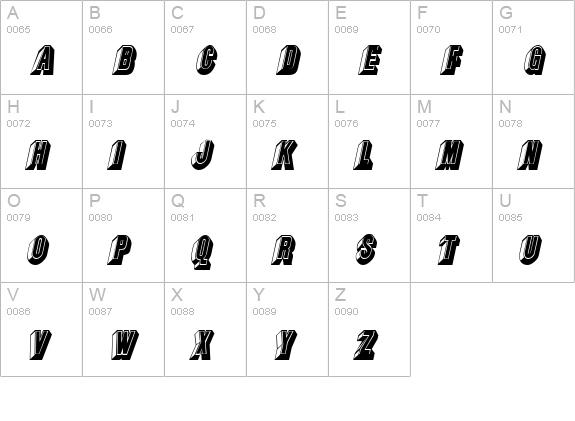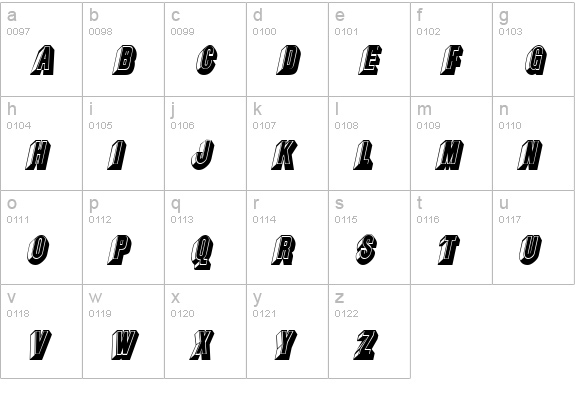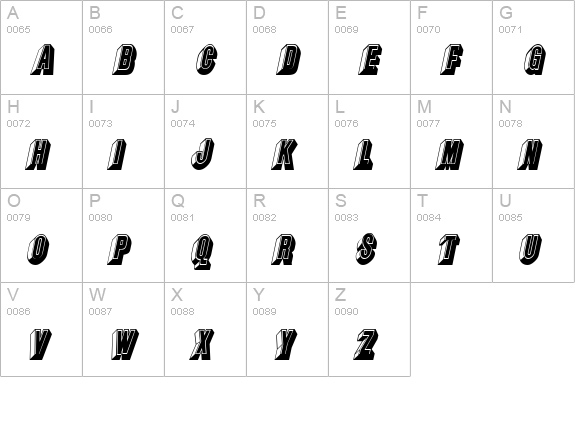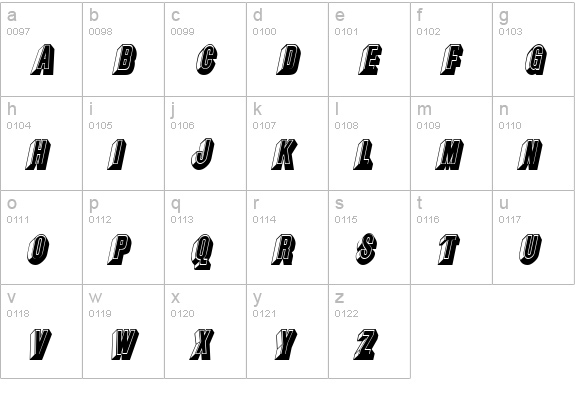
ChocolateCondensed Italic Font Details
ChocolateCondensed Italic is a distinctive, italic variant in the ChocolateCondensed typeface family \xE2\x80\x94 well suited to design and typography projects.
Introducing ChocolateCondensed Italic font, a sleek and elegant typeface designed to add a touch of sophistication to your projects. The unique italic style of this font exudes a sense of modernity and creativity, making it perfect for a wide range of design applications. With its condensed form, ChocolateCondensed Italic font is ideal for creating impactful headlines, stylish logos, and eye-catching branding materials. Whether you're working on a print or digital project, this font will help you stand out from the crowd with its distinctive look. And the best part? ChocolateCondensed Italic font is completely free to download at FontsMarket.com. So go ahead and elevate your designs with this versatile and stylish font today!